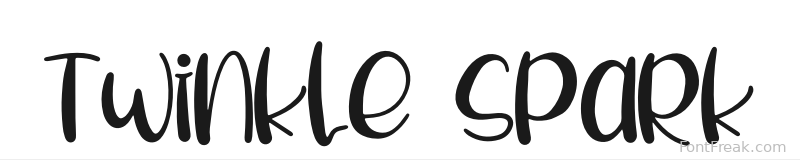
Twinkle Spark
Twinkle Spark by Perspectype Studio is a delightful display font that brings a touch of whimsy and charm to any project. Released in 2021, this font is classified as a decorative typeface, characterized by its playful curves and lively strokes. The letterforms exhibit a medium stroke weight with subtle variations that add a dynamic quality, while the spacing between characters ensures clarity and legibility, making it suitable for various applications.
Visually, Twinkle Spark is adorned with charming decorative elements that evoke a sense of joy and festivity. The rounded edges and gentle flourishes create a friendly feel, perfect for capturing attention without overwhelming the viewer. This font is particularly well-suited for use in wedding invitations, where its light-hearted style can beautifully complement romantic themes. Additionally, it shines in children’s book covers, adding a sense of fun and imagination. Restaurant menus can also benefit from its unique character, drawing diners' eyes to special offers or signature dishes. Furthermore, Twinkle Spark is ideal for social media graphics, helping content creators make their posts stand out in a crowded feed.
In summary, Twinkle Spark font free download is a standout choice for anyone seeking a font that combines fun and functionality. Its unique visual style and versatility make it a valuable addition to any designer’s toolkit, ensuring that projects not only convey their message but also capture the essence of joy and creativity.